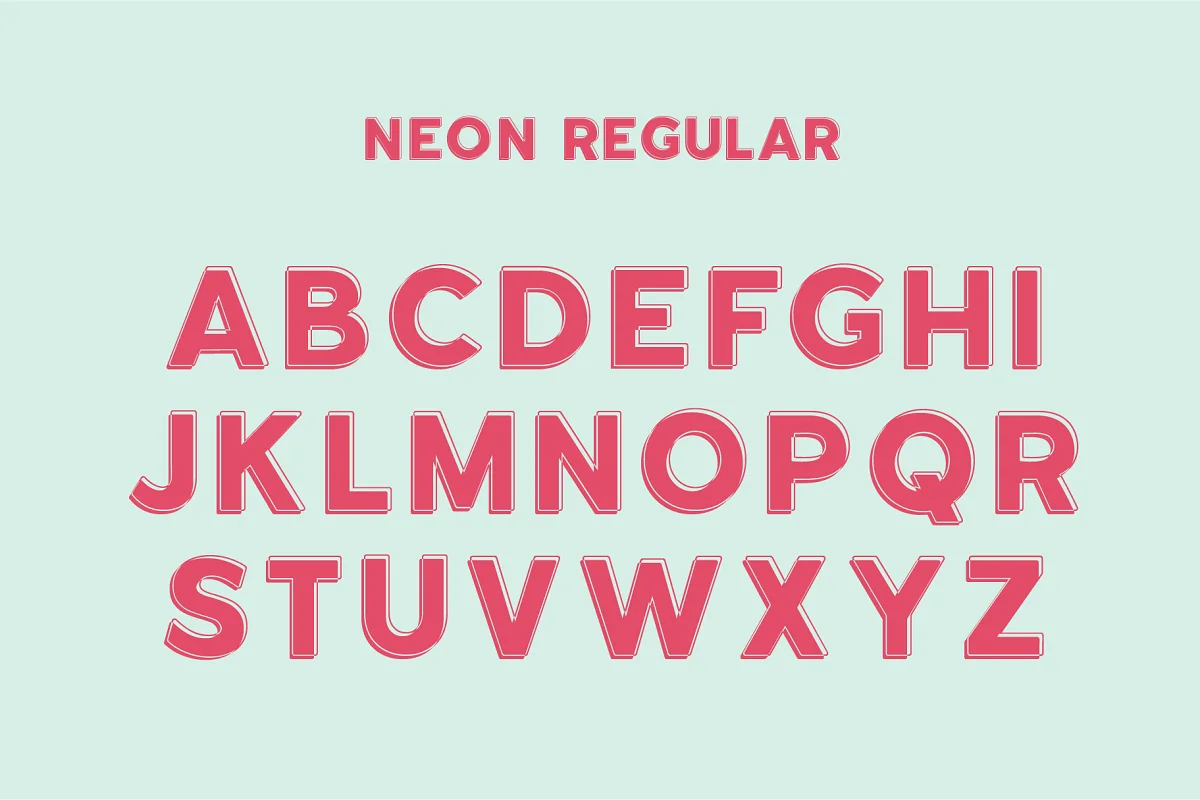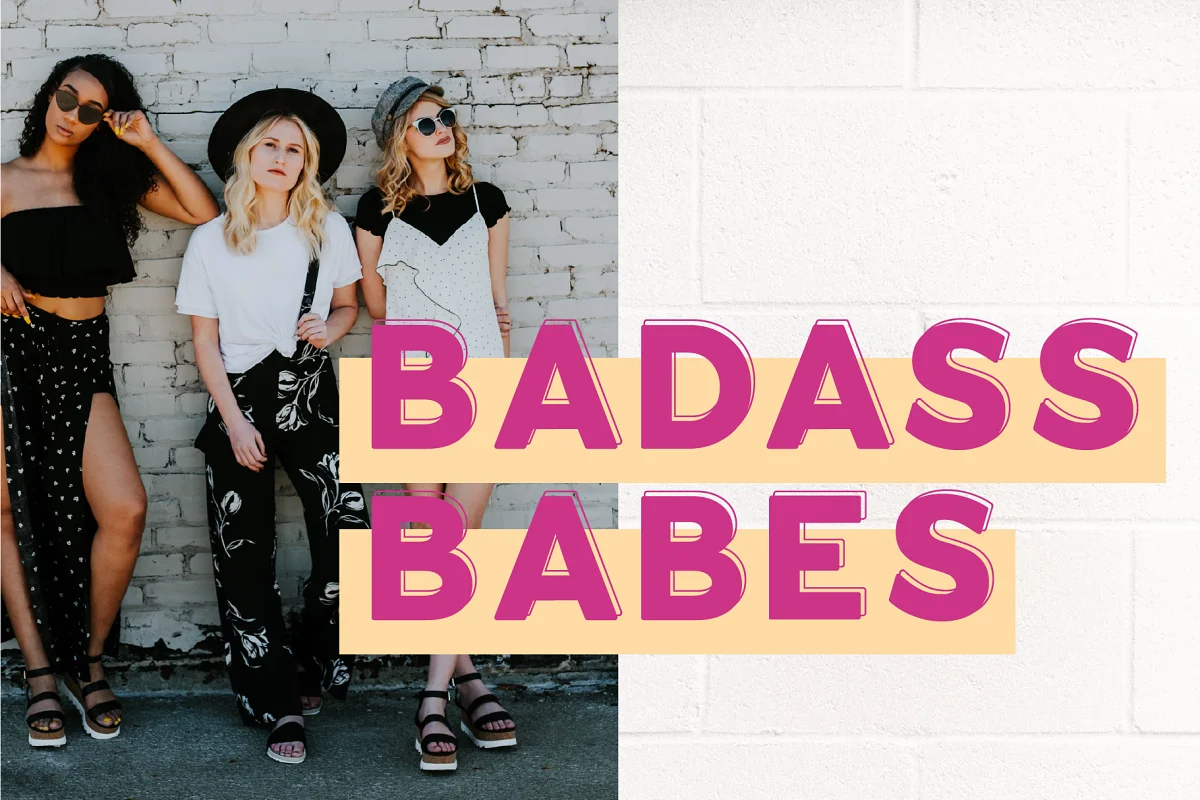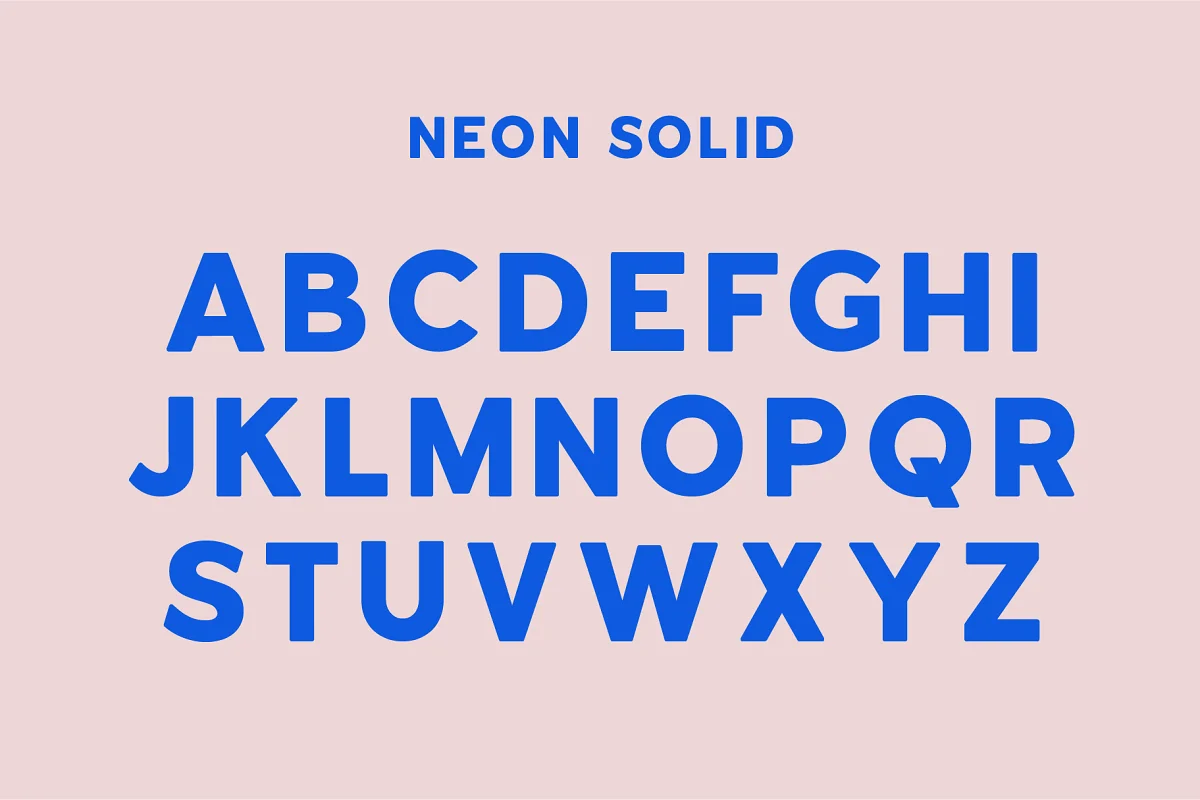
About the Neon Font Family
Introducing the NEON outline font bundle, an all caps, modern and edgy group of bold san serifs. This bundle includes a 5 sister fonts, all with their own unique properties. These fonts are perfect for editorial use, logos or bold headings on your website or printed materials.
1. Neon Regular – A 3D version of the font with a unique cut out effect.
2. Neon Solid – The original bold all caps font, pairs perfectly with any of the other lined versions.
3. Neon Outline – A modern single outline style.
4. Neon Shadow – A solid 3D version of the font.
5. Neon Double – A modern and unique double outline.
All fonts come with an all caps alphabet, numbers 0-9 and have a range of alternative characters. If you have any trouble finding certain characters you can access them via the glyphs panel.